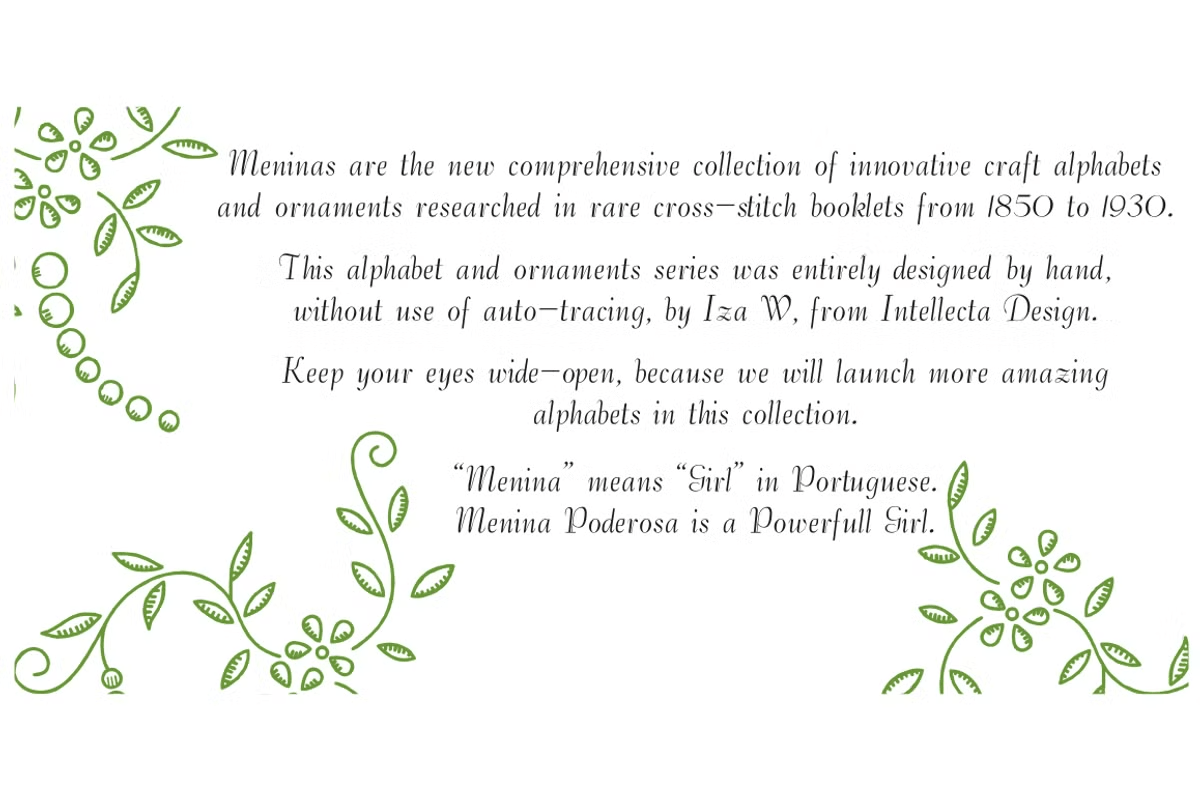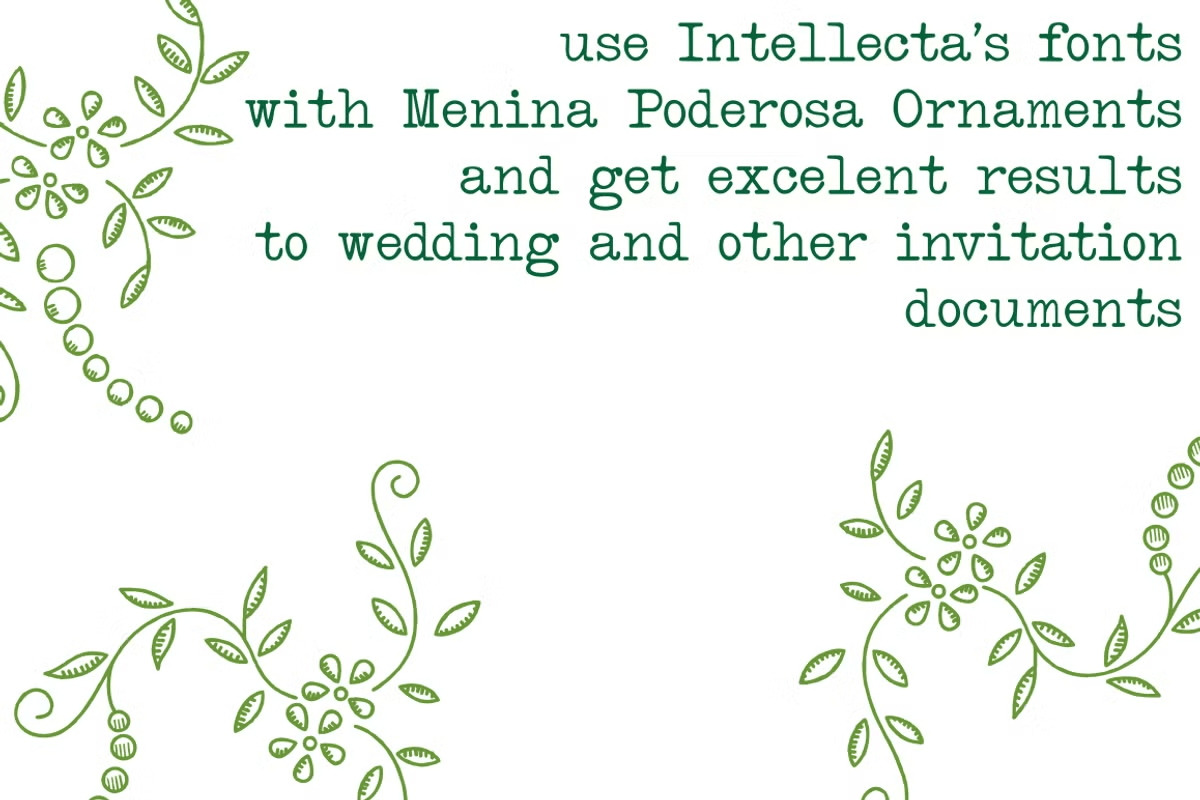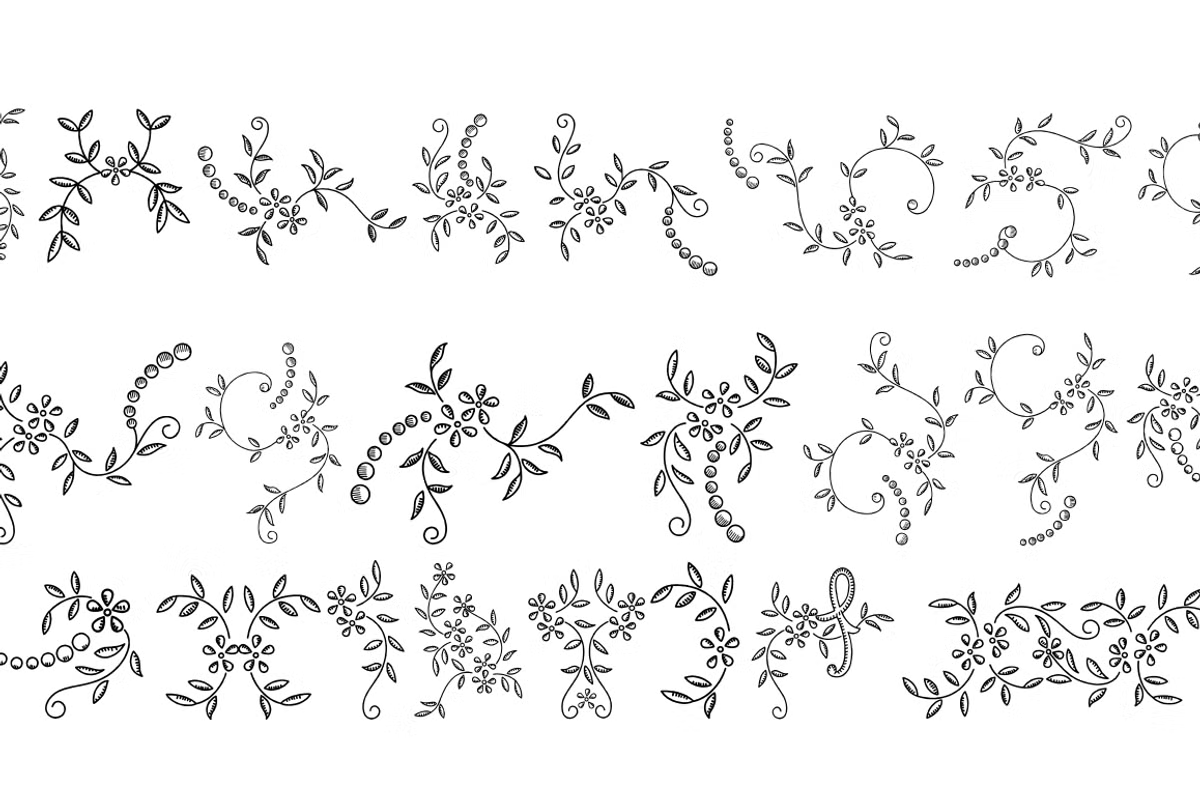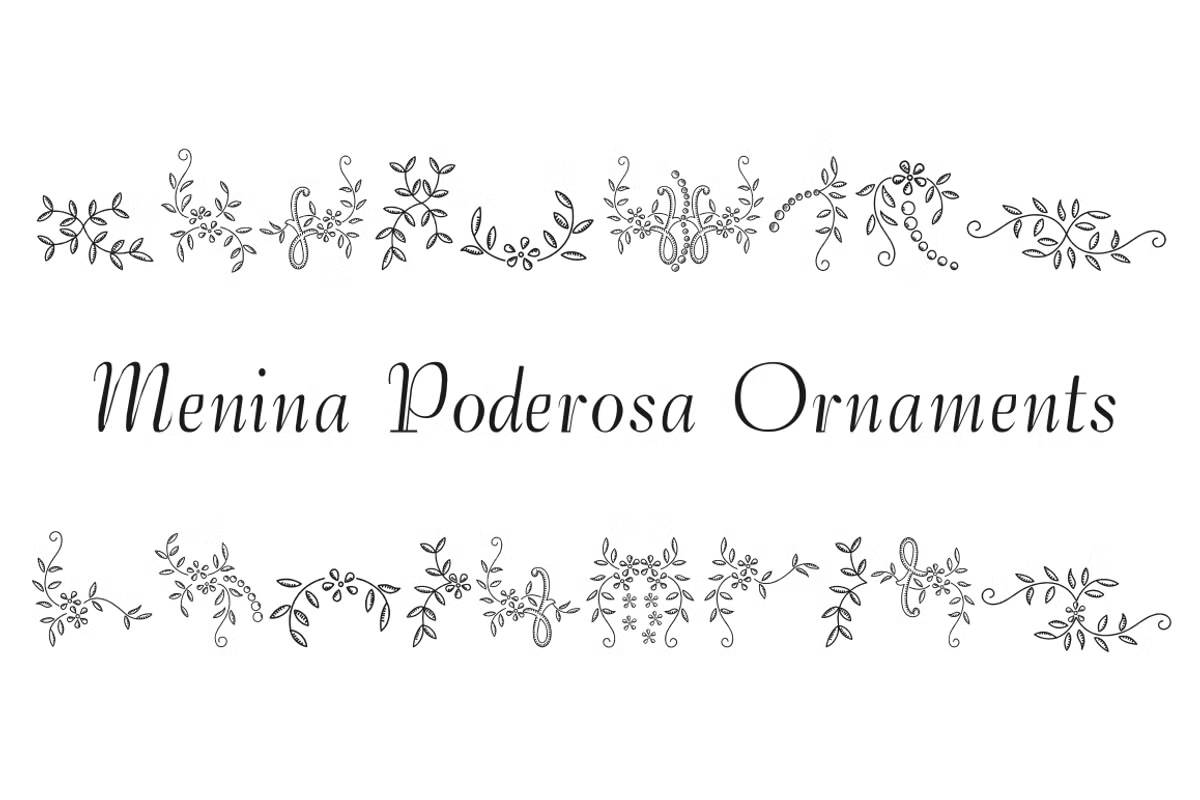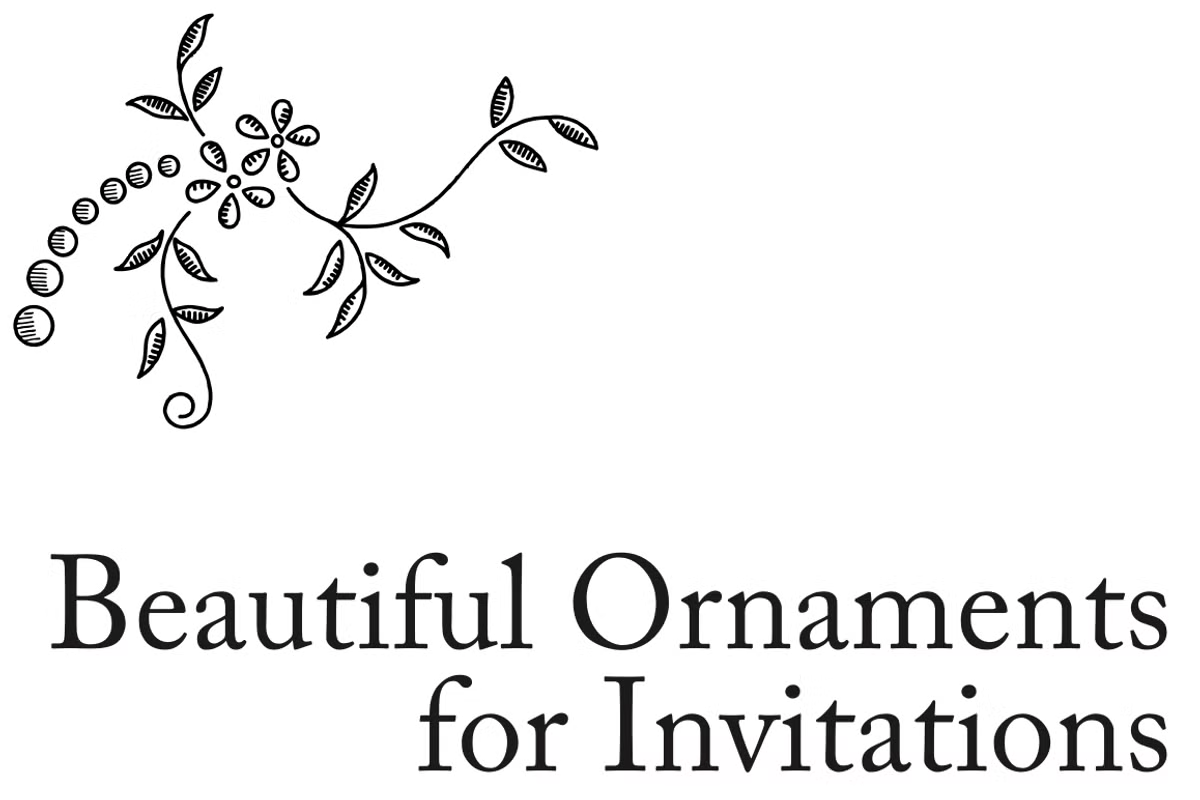
About Menina Poderosa Ornaments
"Meninas" are a comprehensive collection of innovative craft alphabets and ornaments researched in rare cross-stitch booklets from 1850 to 1930. This alphabet and ornaments series was entirely designed by hand, without use of auto-tracing, by…